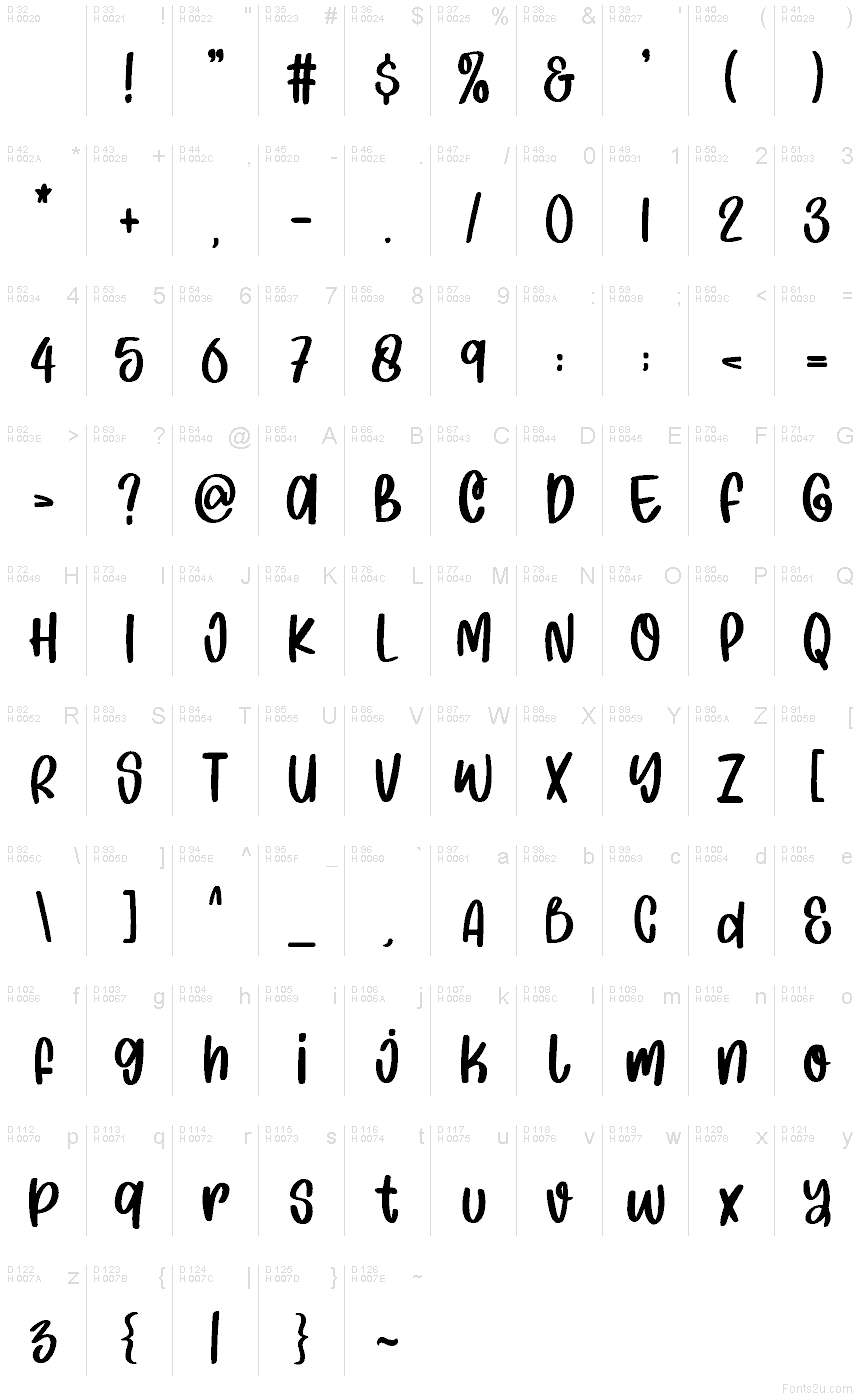
Easy Messy
Easy Messy font by Dm Letter Studio - Dimas Prasetyo is a free handwritten font that nails the sweet spot between carefree and clear. Thick, inky strokes, rounded corners, and loopy forms give it a squishy, hand-painted feel, while its even rhythm keeps words readable at a glance. When you need something playful without tipping into chaos, this gets the tone right—friendly, bold, and unpretentious.
Using Easy Messy, headlines and short phrases pop on kids’ branding, craft packaging, party invitations, stickers, greeting cards, and café boards. The roomy spacing helps it breathe on colorful backgrounds and textured paper. For an easy pairing, set body copy in a clean geometric sans; keep this free font a size or two larger to let the curves sing.